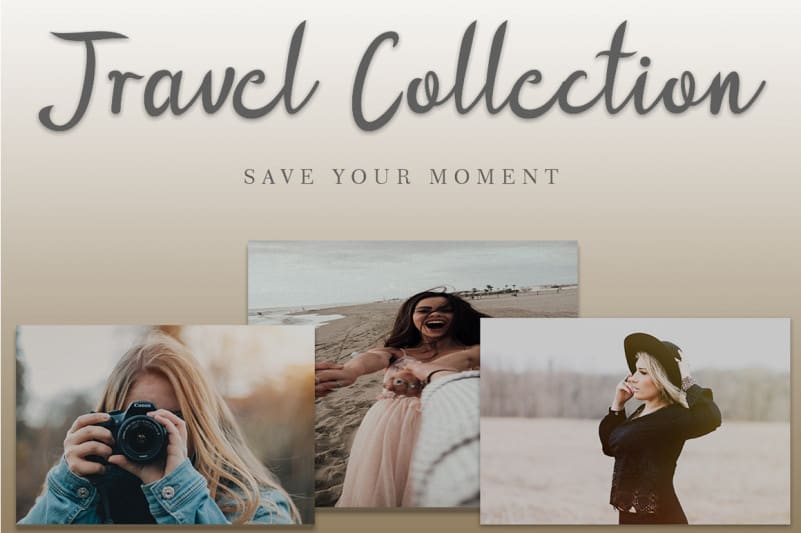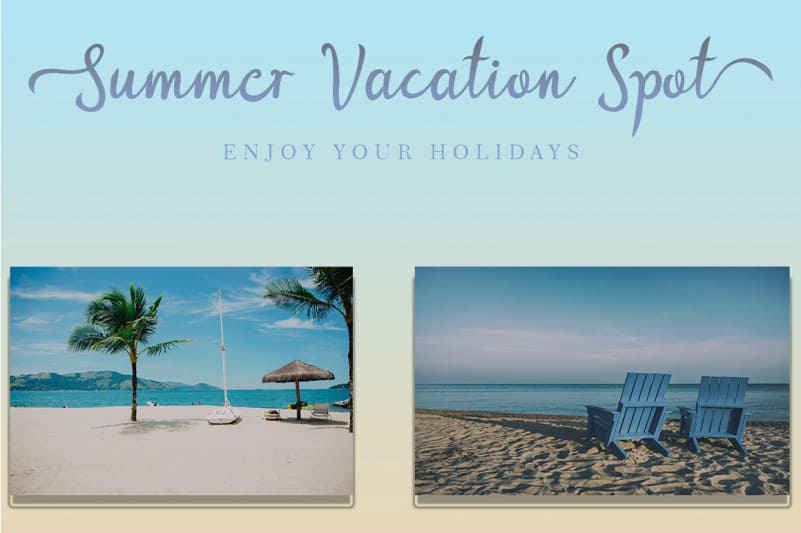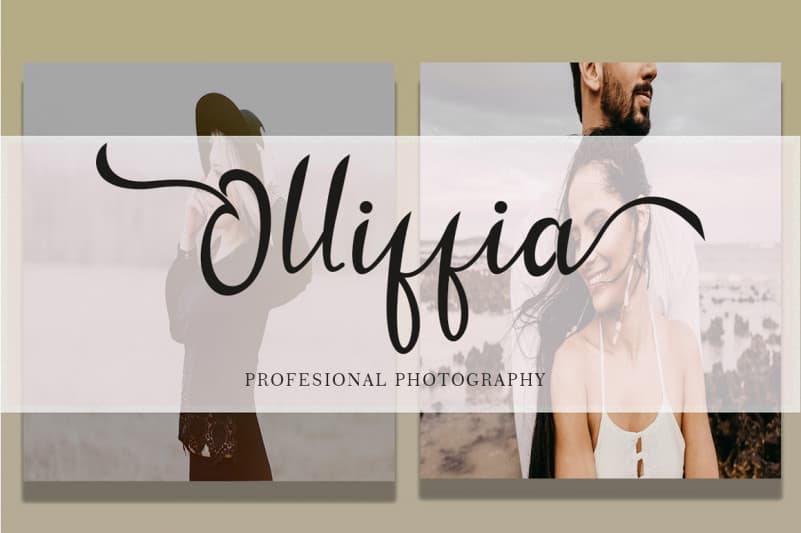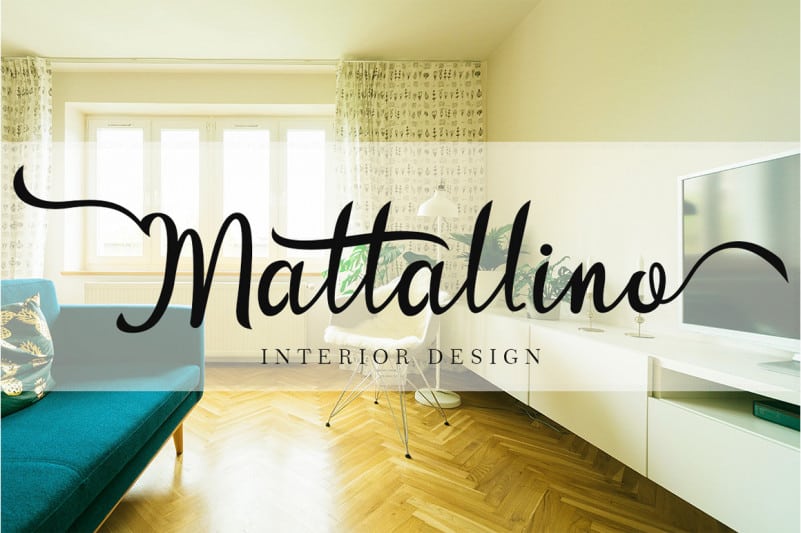
Queenatha Calligraphy Font
The name of this font is “Queenatha Calligraphy Font“. This font is very beautiful and elegant for all types of work. This font name is very pretty and is able to beautify all your work. Starting from work related to weddings (wedding invitations, wedding photography, wedding planners, wedding organizers), capture your vacation moments, to update status on social media, make quotes, to promote your business, promote hotels, travel agents, tourist attractions, to create logos, branding and more.